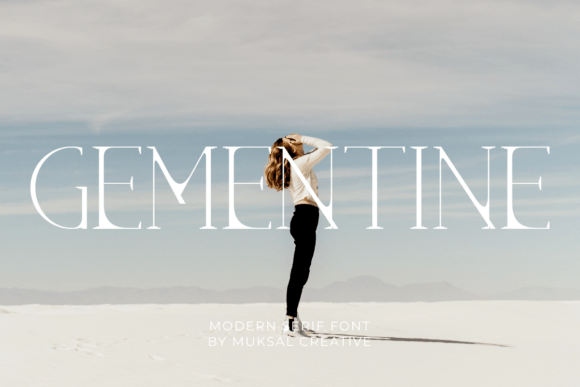
Gementine Font: Elevate Your Brand with Elegance and Sophistication
In the world of typography, fonts play a crucial role in shaping brand identities. For designers and crafters seeking to create a lasting impression, especially in the fashion industry, the choice of font can make all the difference. This is where the Gementine font comes into play—a modern serif font that exudes an elegant charm and understated sophistication. With its unique blend of subtlety and strength, Gementine has become an ideal choice for branding logos aimed at the feminine market.
The Essence of Gementine: A Balance of Subtlety and Strength
Gementine’s design is characterized by its graceful lines that achieve a delicate balance between subtlety and strength. Each letter in the Gementine font is intricately detailed, showcasing well-proportioned elements that impart a soft touch while retaining a commanding presence. This balance makes Gementine a versatile font, capable of conveying a range of emotions and brand values. Whether you’re designing a logo for a fashion brand, a beauty product, or any service targeting a feminine audience, Gementine offers the perfect blend of elegance and assertiveness.
Why Gementine is Perfect for Feminine Branding
In the realm of branding, especially within the fashion and beauty industries, evoking the right aura is crucial. Gementine evokes an exclusive and refined aura, perfectly suited for brands seeking to showcase gracefulness and beauty in their logo designs. The font’s ability to convey a sense of luxury, sophistication, and femininity makes it a prime choice for brands aiming to embody the beauty, grace, and empowering essence of femininity within their brand identity.
Seamless Blend of Finesse and Assertiveness
What sets Gementine apart from other serif fonts is its seamless blend of finesse and assertiveness. This unique combination allows brands to communicate their message effectively, making their logos memorable and impactful. The finesse in Gementine’s design appeals to the aesthetic sensibilities of the target audience, particularly those in the fashion-forward and style-conscious demographics. Meanwhile, its assertiveness ensures that the brand’s message is conveyed with confidence and authority.
Applications of Gementine in Design
Gementine’s versatility makes it suitable for a wide range of design applications. Here are a few ways designers and crafters can utilize this elegant font:
• Logo Design: Ideal for fashion brands, beauty products, and lifestyle services targeting a feminine audience.
• Typography: Perfect for headings, titles, and any prominent text where elegance and readability are desired.
• Branding Materials: Suitable for business cards, brochures, and packaging where a sophisticated look is required.
• Digital Media: Great for website headers, social media graphics, and advertisements aimed at a feminine demographic.
In conclusion, the Gementine font offers a unique combination of elegance, sophistication, and assertiveness, making it an excellent choice for designers and crafters looking to create impactful brand identities. Its suitability for feminine branding, particularly within the fashion industry, is unmatched. By incorporating Gementine into your design projects, you can ensure that your brand’s message is conveyed with grace, beauty, and authority. Whether you’re aiming to create a luxurious feel or an empowering brand image, Gementine stands as a prime option that can elevate your brand to new heights of style and recognition.
With its intricate details, well-proportioned elements, and a delicate balance between subtlety and strength, Gementine is poised to become a go-to font for designers seeking to make a lasting impression. Explore the possibilities with Gementine, and discover how this modern serif font can transform your brand’s identity into a symbol of elegance and sophistication.